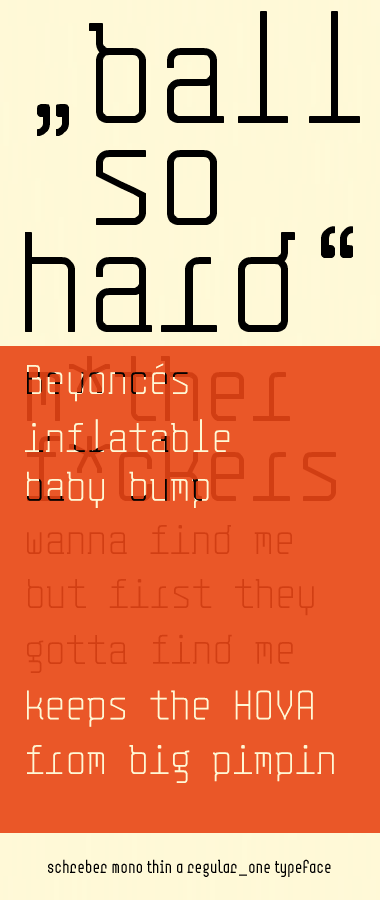
Schreber mono thin
regular_one
Schreber mono
regular_one
You're the king of monospaced fonts. Beautiful. Although the g could use a bit more personality, this is a 10 for sure. Can we see a sample?
no offence meant with this sample. i simply had no idea
Ha! Wow, that is one intense sample ;)
I've made a few
modifications
+
enhancements
with this
version